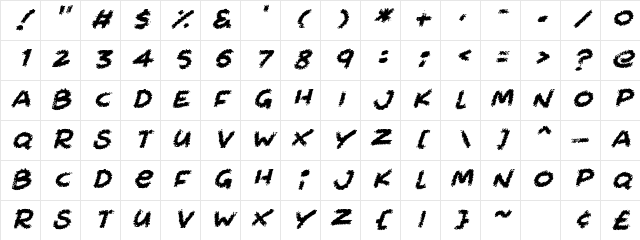
Chalkabout Italic Free Font
Chalkabout Italic
Design Context for Chalkabout
Chalkabout is a composed and adaptable typeface that performs quietly and consistently across a wide range of design contexts. The slanted form adds forward momentum and visual energy.
Pro Tip: Use Chalkabout for emphasis, pull quotes, and subheadings where its slanted energy can add rhythm to the layout.